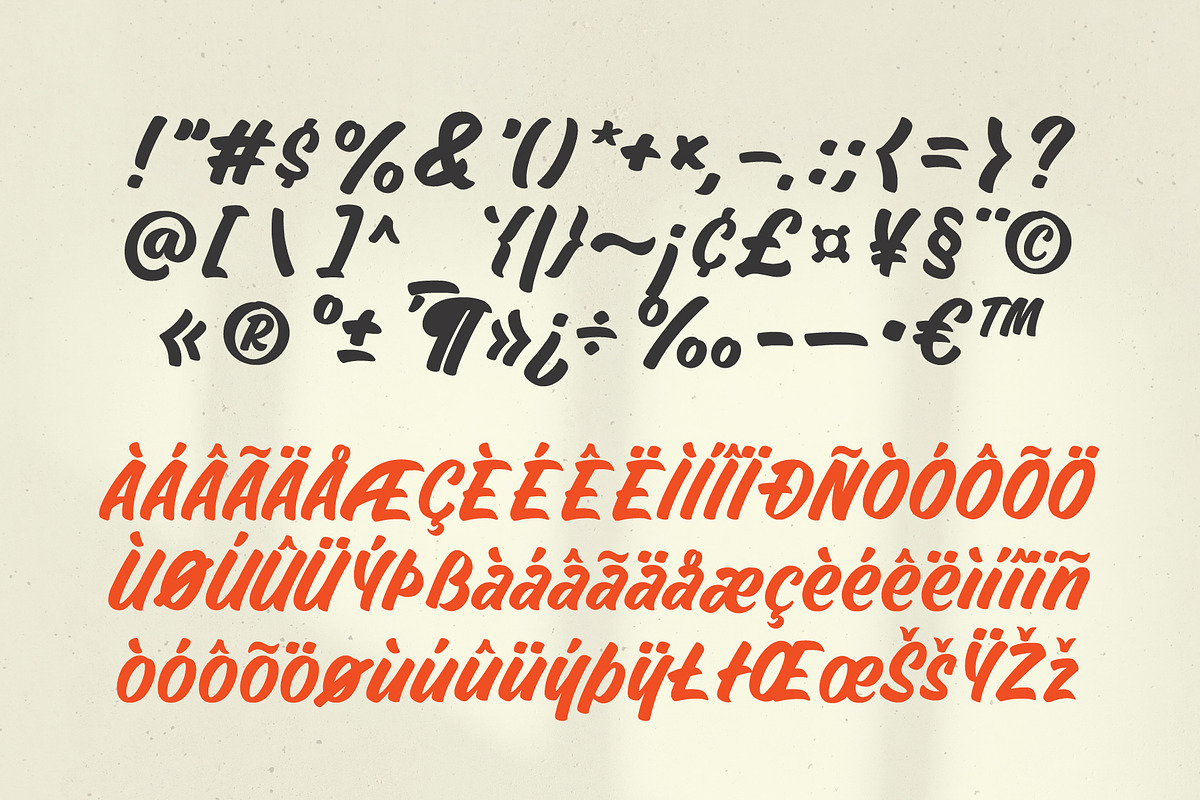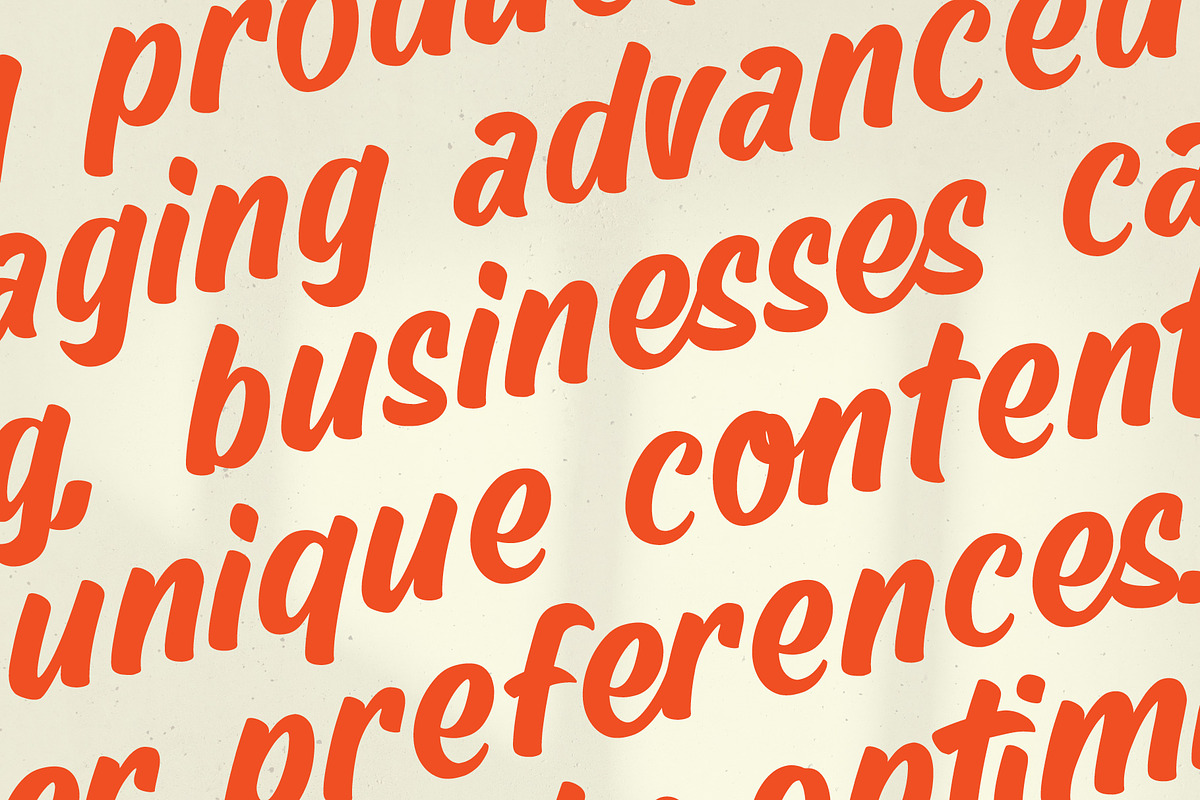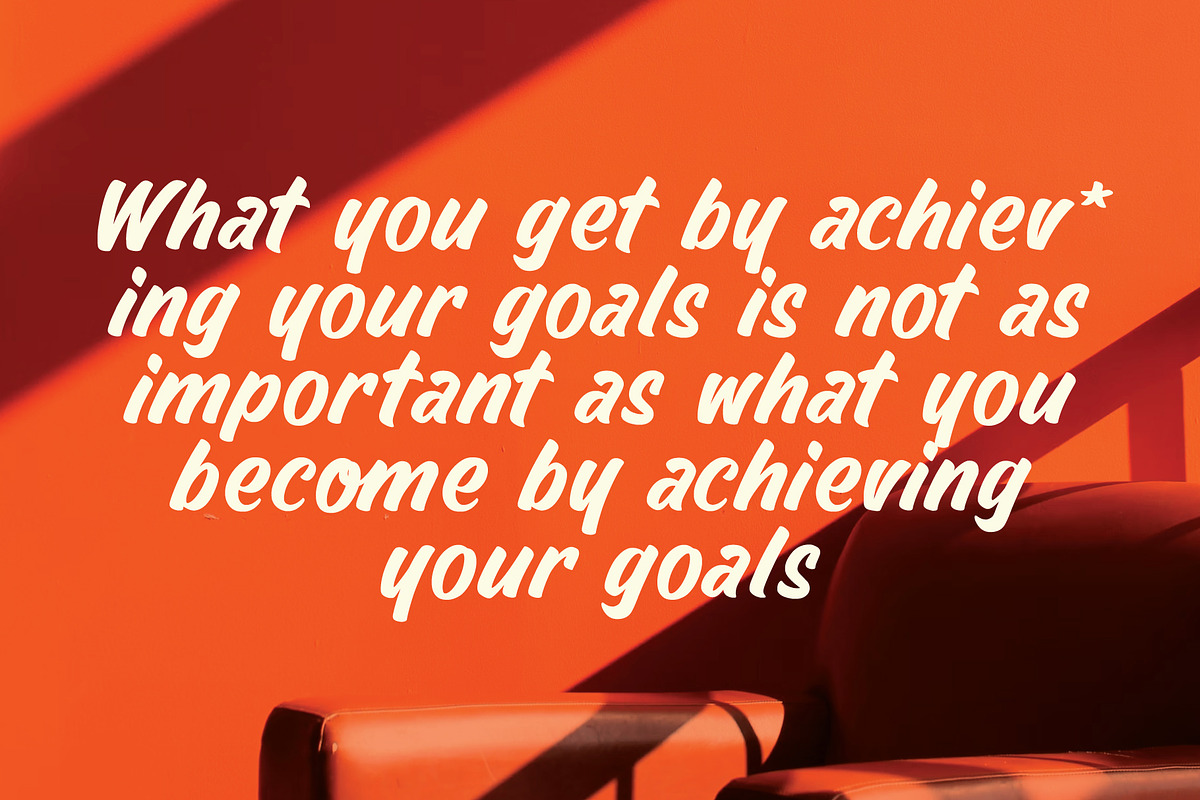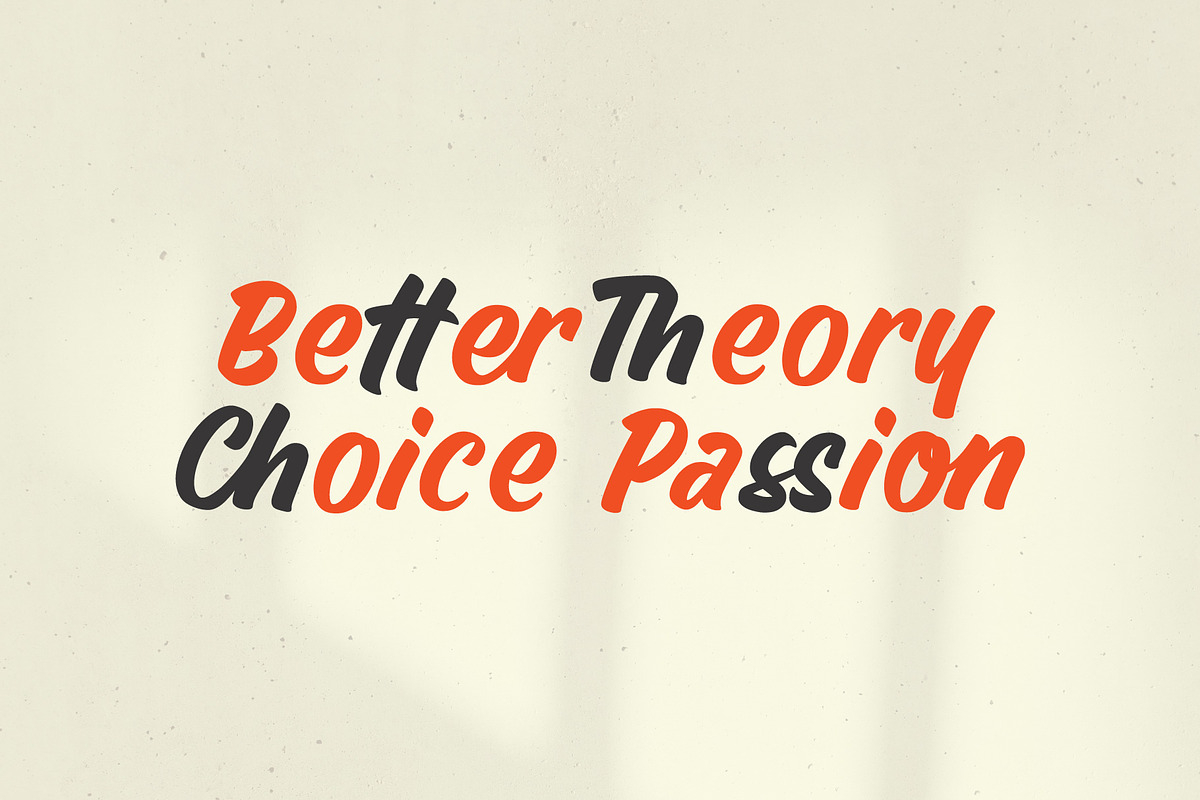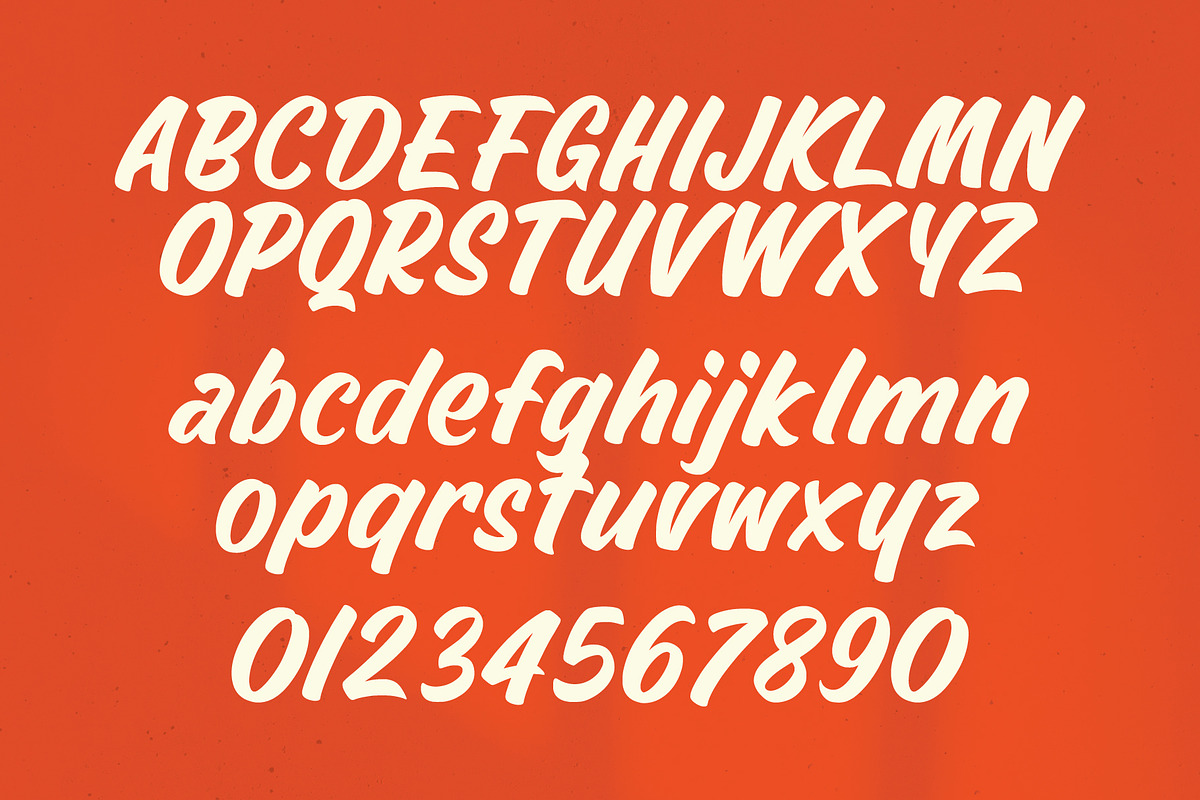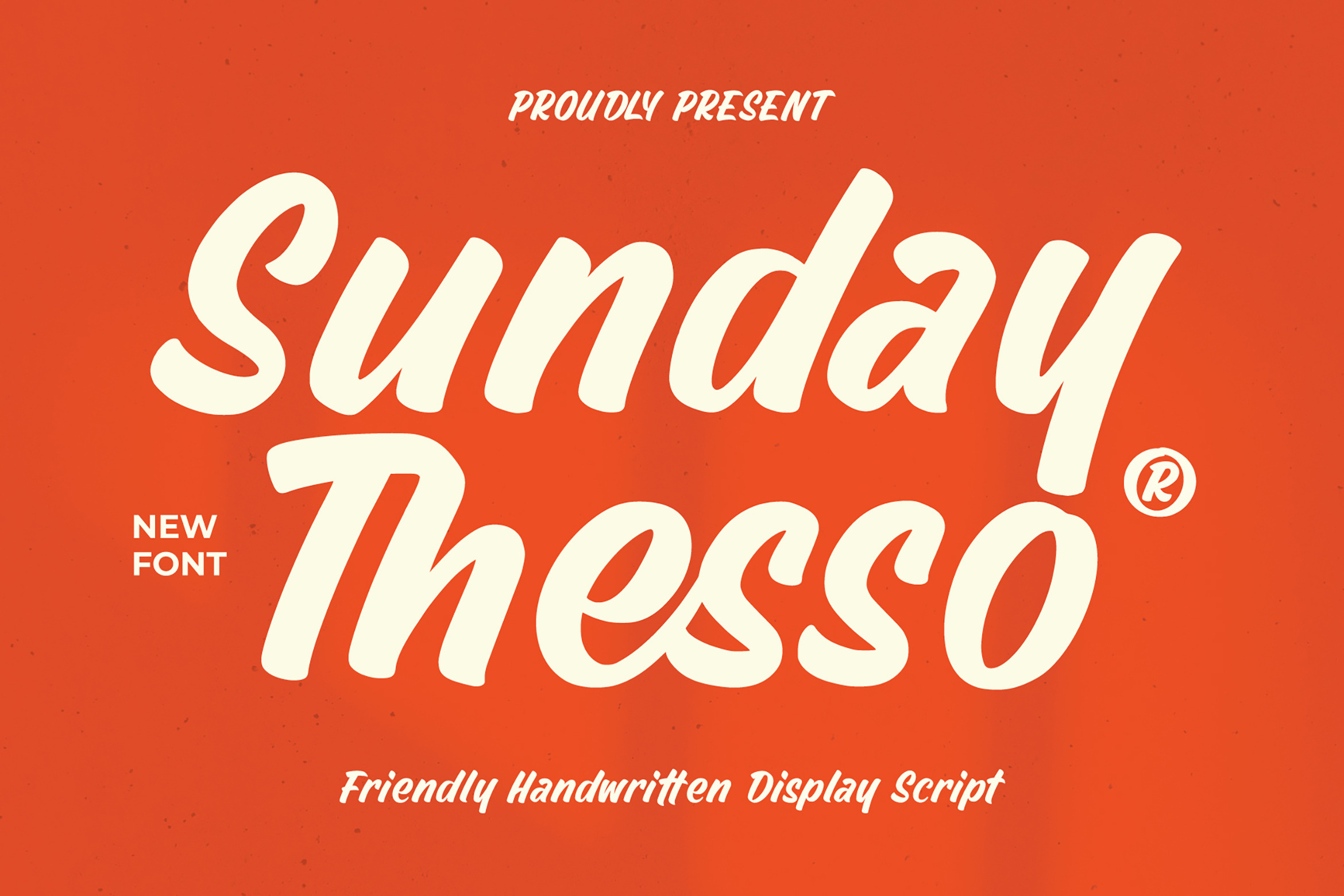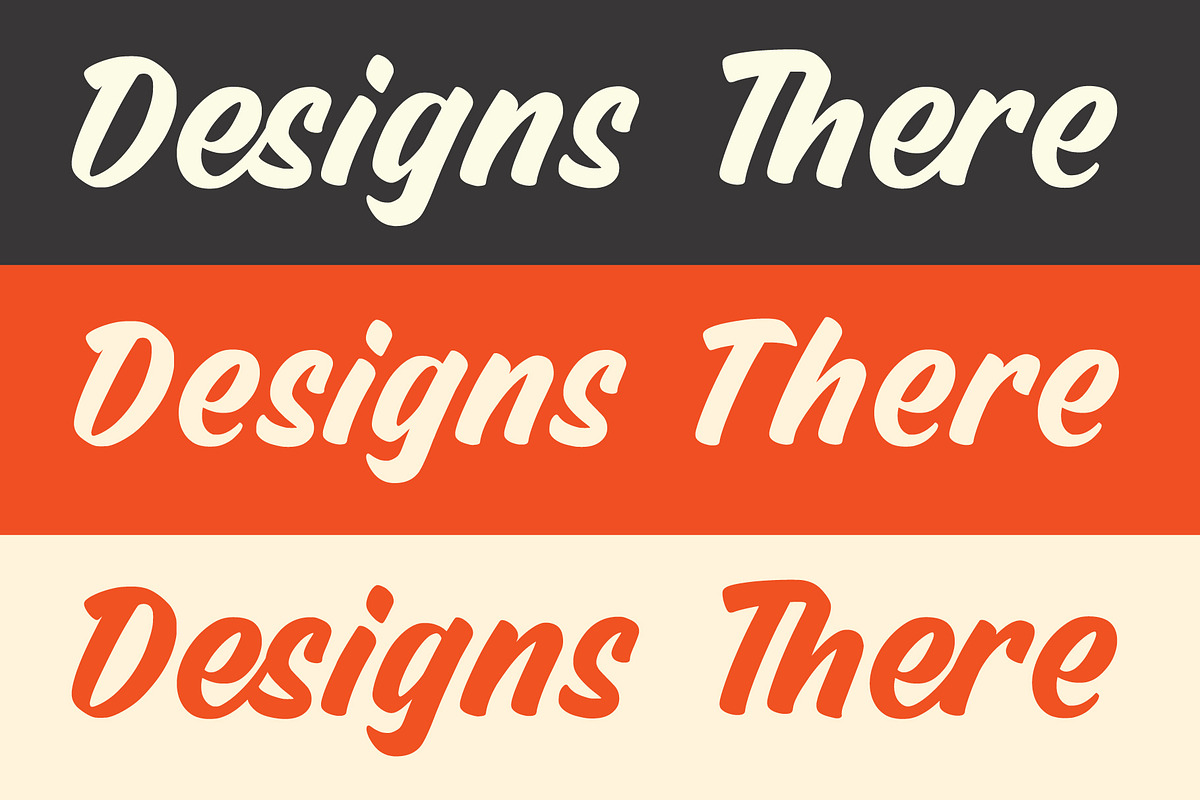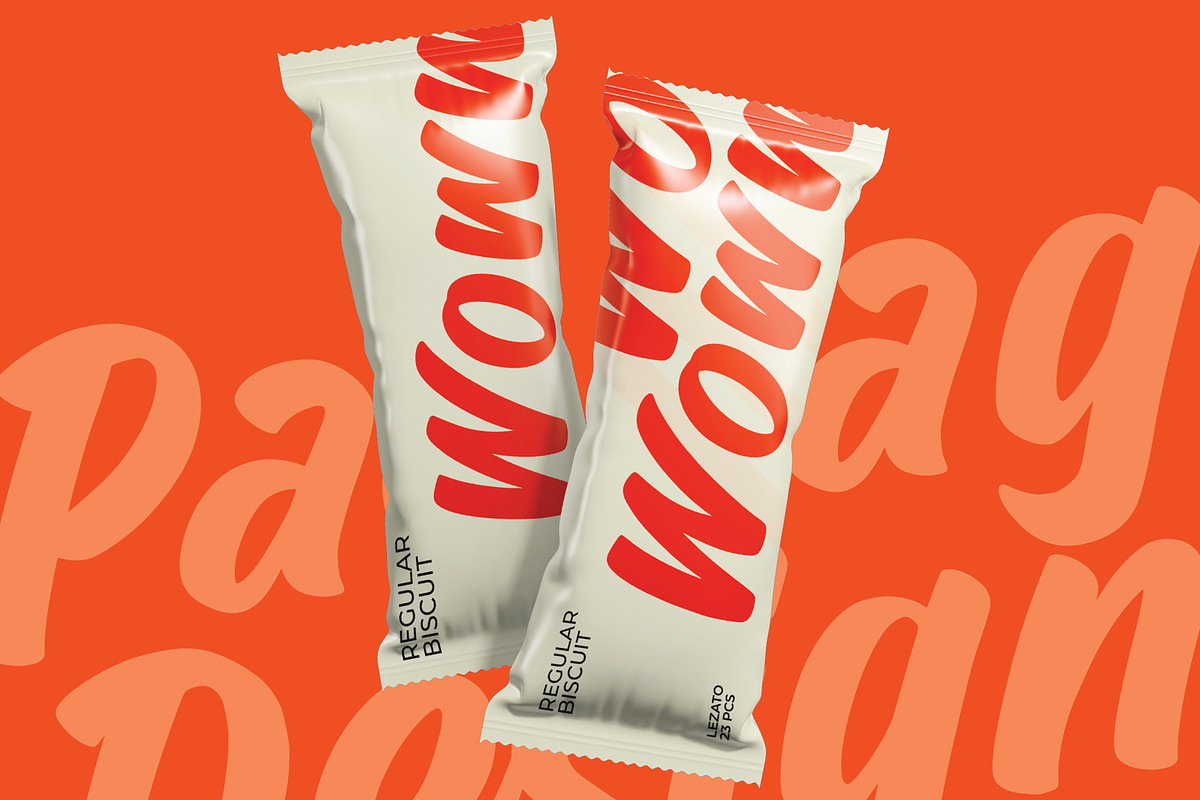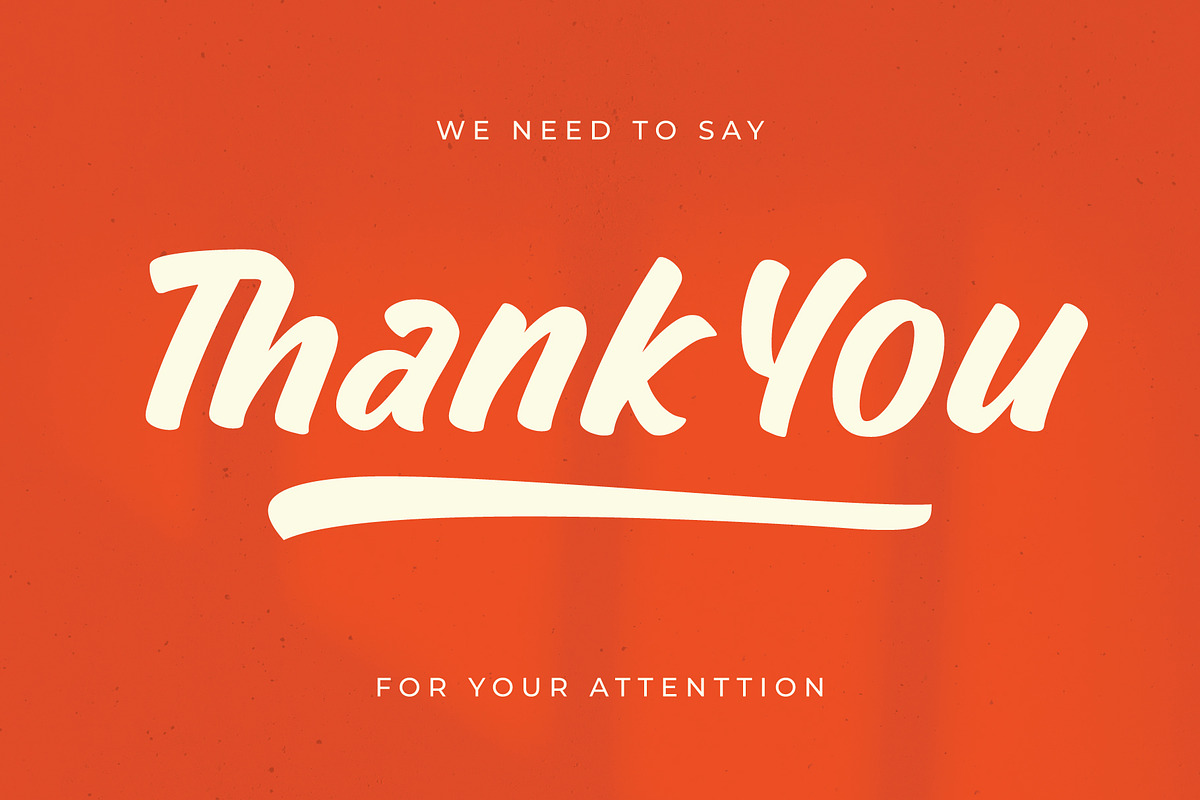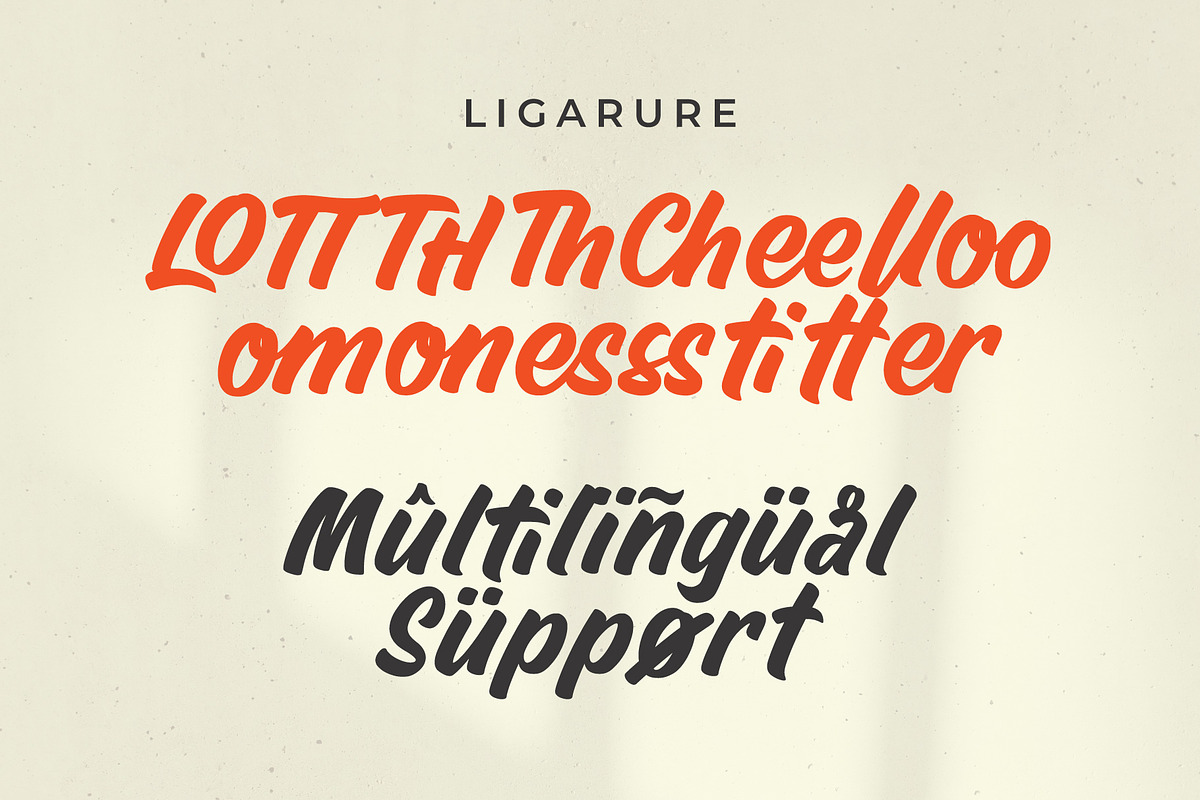
Sunday Thesso - Display Script Font
Sunday Thesso – Display Script Font
Sunday Thesso is a display script font with bold strokes and expressive letterforms designed to stand out in eye-catching visuals. This font blends a dynamic handwritten flow with strong, confident shapes, creating a playful yet stylish personality for modern designs.
Note : Bring bold energy and expressive display script character to your designs with Sunday Thesso.